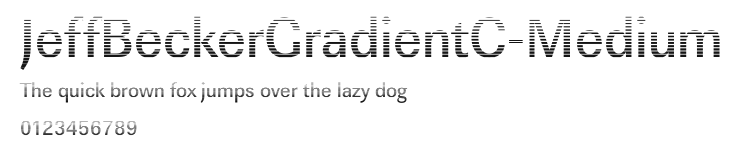
JeffBeckerGradientC-Medium Preview
About JeffBeckerGradientC-Medium.ttf
JeffBeckerGradientC-Medium.ttf is a modern, elegant sans-serif font designed for ultimate readability and visual harmony. Perfect for branding, headlines, web design, and print materials.